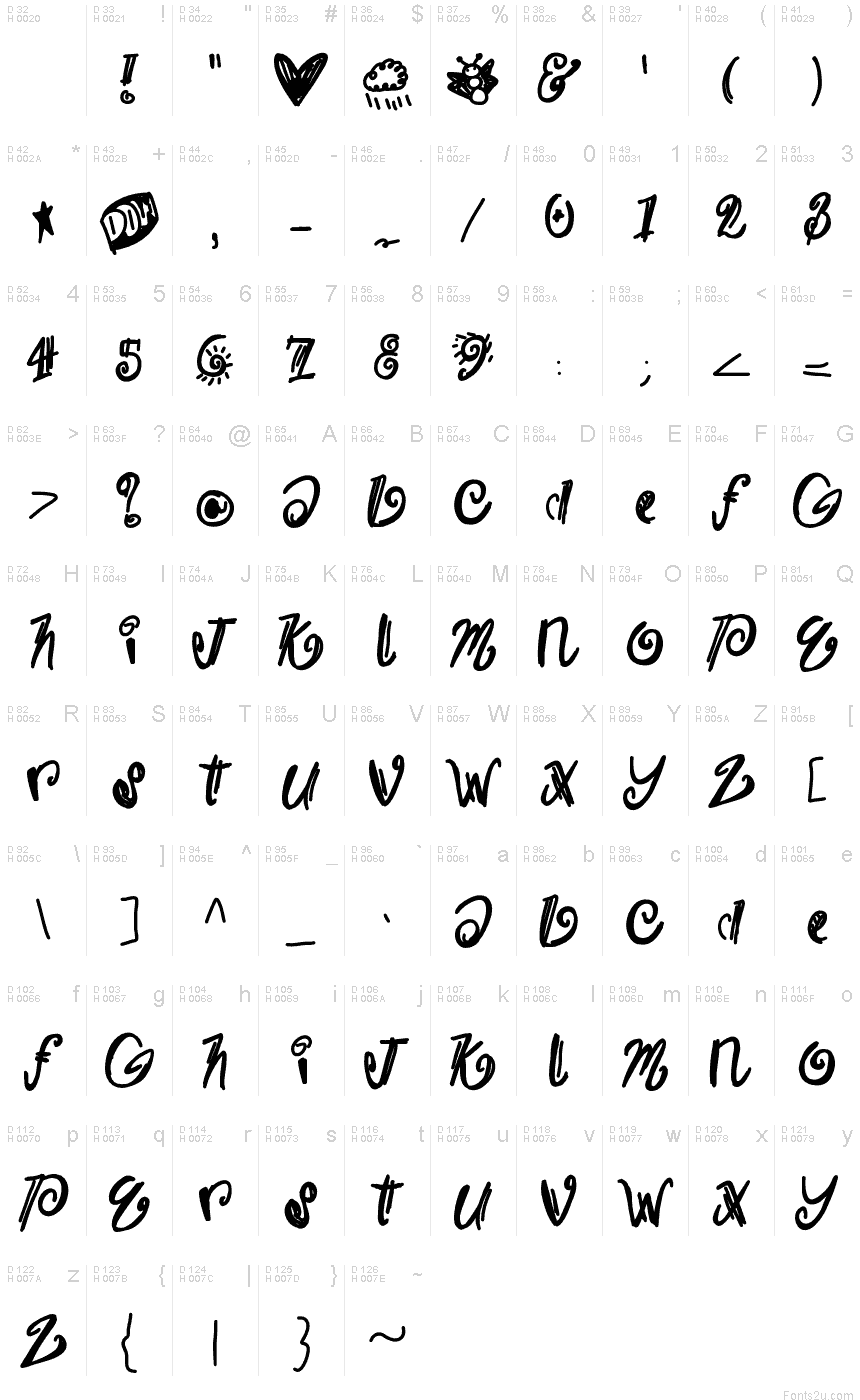
Burrrr is a free curly display font with the restless flow of improvised lettering. Its looping strokes swell, taper, and double back, giving many letters spiral centers and long, wandering joins. Uneven proportions and sudden changes in direction make the letters jump and dip.
Used as a scribbled signature or unruly title, it suits music posters, youth fashion branding, and festival graphics. The recurring coils can also become part of the artwork on album covers or merchandise, echoing doodles, cables, and hand-drawn decorative lines.
Burrrr